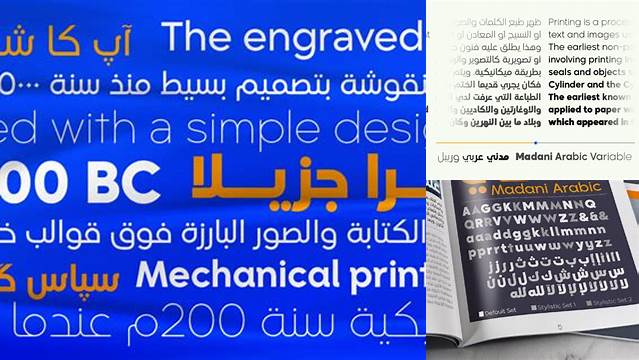
Are you on the hunt for a stylish and functional Arabic font to elevate your design projects? Look no further! In this article, we'll dive into the world of the Madani Arabic font, a typeface celebrated for its legibility and aesthetic appeal. We'll explore its unique characteristics, discuss its diverse applications, and, most importantly, guide you on how to download it for free. Whether you're a seasoned designer or just starting out, understanding the nuances of Arabic typography and having access to quality fonts like Madani can significantly enhance your creative work. So, let's get started and discover how Madani Arabic can add a touch of elegance and authenticity to your next project!
What is Madani Arabic Font?
So, what exactly is the Madani Arabic font, guys? Let's break it down. This font is a typeface specifically designed for the Arabic script, known for its clean lines, readability, and modern aesthetic. Unlike some of the more traditional Arabic fonts, Madani strikes a balance between classic calligraphic forms and contemporary design principles. This makes it incredibly versatile, suitable for a wide range of applications from print to digital media. Think about it – you could use it for website headers, body text in documents, posters, logos, and even mobile apps. Its versatility stems from its carefully crafted letterforms that maintain clarity even at smaller sizes, a crucial factor in digital design. The font family often includes various weights and styles, such as regular, bold, italic, and more, giving you even greater flexibility in your design choices. The beauty of Madani lies in its ability to convey a sense of sophistication and professionalism while remaining approachable and easy to read. When you're working on a project that requires Arabic text, choosing a font like Madani can make a world of difference in how your message is perceived. It's not just about the words you use, but also about how those words look on the page or screen. Imagine using a clunky, outdated font – it could detract from your message and make your design look amateurish. But with Madani, you're ensuring that your text is presented in a clear, elegant, and modern way, helping you to connect with your audience more effectively. So, whether you're designing a website, creating marketing materials, or working on any project that involves Arabic text, Madani Arabic font is definitely a tool you'll want in your arsenal.
Now, let’s get into the nitty-gritty and talk about the key features and characteristics of Madani Arabic font. What makes it stand out from the crowd? First off, and perhaps most importantly, is its readability. In Arabic typography, maintaining clarity across different sizes and mediums can be challenging, but Madani excels in this area. Its letterforms are designed with ample spacing and clear distinctions, ensuring that each character is easily recognizable, even in long blocks of text. This is especially crucial for body text in documents or websites, where legibility is paramount. Beyond readability, Madani boasts a contemporary design that blends traditional Arabic calligraphic elements with modern aesthetics. This fusion creates a typeface that feels both authentic and fresh, making it suitable for a wide range of design styles. The strokes are clean and crisp, the curves are elegant, and the overall appearance is polished and professional. Another key feature is the font family's versatility. Madani typically comes in a variety of weights and styles, such as regular, bold, light, italic, and sometimes even more specialized variations. This allows designers to create visual hierarchy and add emphasis within their text, enhancing the overall impact of their design. For example, you might use the bold weight for headlines and the regular weight for body text, or use the italic style to highlight specific words or phrases. The comprehensive nature of the Madani font family ensures that you have the tools you need to create cohesive and visually appealing designs. Furthermore, Madani Arabic font often includes support for a wide range of characters and glyphs, including diacritics and other special symbols. This is essential for ensuring accurate representation of the Arabic script in its various forms and dialects. The attention to detail in the character set reflects the font designer's commitment to creating a high-quality typeface that meets the needs of a global audience. So, in a nutshell, Madani Arabic font is characterized by its exceptional readability, contemporary design, versatile family of styles, and comprehensive character support. These features make it a top choice for designers looking to create impactful and visually appealing Arabic typography.
Where to Use Madani Arabic Font
Okay, so you're digging the Madani Arabic font, but where can you actually use it? The possibilities are pretty vast, guys! Because of its clean and modern aesthetic, Madani is a fantastic choice for a ton of different projects. Let's start with web design. If you're building a website that needs to display Arabic text, Madani can be a game-changer. Its excellent readability makes it perfect for both headlines and body text, ensuring that your content is easy on the eyes. Imagine a sleek, contemporary website with Madani headlines grabbing attention and Madani body text keeping visitors engaged – that’s the kind of impact this font can have. Moving on to print materials, Madani shines just as brightly. Think about brochures, posters, flyers, and even books. The font's clarity and elegance make it a superb choice for any printed piece where you want to convey professionalism and style. Whether you're designing a marketing campaign or laying out a novel, Madani can help your words come to life on the page. Branding is another area where Madani excels. If you're creating a logo or developing a brand identity for a company that uses Arabic, this font can add a touch of sophistication and authenticity. Its versatility allows it to fit seamlessly into various brand styles, from minimalist to more elaborate designs. A well-chosen font can be a cornerstone of a brand's visual identity, and Madani is a strong contender for any brand looking to make a statement in Arabic. Then there's the world of digital publications, such as e-books and online magazines. Madani's readability ensures that your readers will have a pleasant experience, whether they're viewing your content on a computer screen, tablet, or smartphone. In digital environments, where screen resolution and display sizes can vary, font clarity is crucial, and Madani delivers in spades. And let's not forget about mobile apps. If you're designing an app that caters to Arabic-speaking users, Madani can help you create an interface that is both visually appealing and highly functional. Clear, readable text is essential for app usability, and Madani's design makes it an ideal choice for mobile applications. So, to sum it up, Madani Arabic font is a versatile workhorse that can be used in web design, print materials, branding, digital publications, mobile apps, and just about any other project where you need to display Arabic text with style and clarity. Its wide range of applications makes it a valuable asset for any designer's toolkit.
Tips for Using Madani Arabic Font Effectively
Okay, you've got Madani Arabic font downloaded and ready to go – awesome! But now comes the crucial part: how to use it effectively. Just having a great font isn't enough; you need to know how to wield it like a pro to really make your designs shine. So, let's dive into some tips and tricks for using Madani Arabic font to its fullest potential. First and foremost, consider legibility. Madani is known for its readability, but you still need to be mindful of things like font size, line height, and letter spacing. If your text is too small or the lines are too close together, even the most legible font can become difficult to read. Experiment with different sizes and spacing to find the sweet spot that makes your text comfortable to read on both screens and in print. Pairing is another key aspect of effective font usage. While Madani is beautiful on its own, it often works best when paired with a complementary font for other elements like headings or captions. Think about the overall tone and style you're going for. If you want a modern and clean look, try pairing Madani with a simple sans-serif font. If you're aiming for something more traditional or elegant, a serif font might be a better choice. Just make sure the fonts you choose complement each other without clashing. Hierarchy is also crucial. Use different weights and styles of Madani to create visual hierarchy within your design. For example, use the bold weight for headlines and the regular weight for body text. You can also use different font sizes to emphasize important information and guide the reader's eye through the page. A clear visual hierarchy helps your audience understand the structure of your content and makes it easier for them to find what they're looking for. Consistency is key in any design project. Once you've chosen your fonts and established a visual hierarchy, stick with them throughout your design. Inconsistent font usage can make your design look amateurish and confusing. Use the same fonts and styles for similar elements on different pages or screens to create a cohesive and professional look. And finally, don't be afraid to experiment! Typography is both a science and an art, so there's always room for creativity. Try out different combinations of fonts, sizes, spacing, and styles to see what works best for your project. The more you experiment, the better you'll become at using fonts effectively. So, to recap: pay attention to legibility, choose your pairings wisely, create a clear hierarchy, maintain consistency, and don't be afraid to experiment. Follow these tips, and you'll be using Madani Arabic font like a seasoned designer in no time!
So, there you have it, guys! We've journeyed through the world of Madani Arabic font, exploring its features, applications, and how to download it for free. This typeface is truly a gem, offering a blend of readability, modern design, and versatility that makes it a fantastic choice for a wide range of projects. Whether you're designing a website, creating print materials, or developing a brand identity, Madani can help you convey your message with style and clarity. Remember, typography is a powerful tool that can significantly impact the effectiveness of your designs. Choosing the right font is about more than just aesthetics; it's about ensuring that your message is communicated clearly and resonates with your audience. Madani Arabic font, with its clean lines and elegant letterforms, is well-equipped to help you achieve this goal. We've also covered some essential tips for using Madani effectively, from paying attention to legibility to creating a clear visual hierarchy. These principles apply to all typography, not just Arabic fonts, so keep them in mind as you work on your designs. And don't forget the importance of downloading fonts from reliable sources and respecting their licenses. The world of free fonts is vast and exciting, but it's crucial to navigate it safely and ethically. Now that you're armed with this knowledge, go ahead and explore the possibilities of Madani Arabic font in your own projects. Experiment with different styles, pairings, and layouts to discover what works best for you. And most importantly, have fun with it! Typography is a creative endeavor, and the more you explore, the more you'll learn. So, whether you're a seasoned designer or just starting out, Madani Arabic font is a valuable addition to your toolkit. Download it, experiment with it, and let it help you create stunning designs that stand out from the crowd. Happy designing!